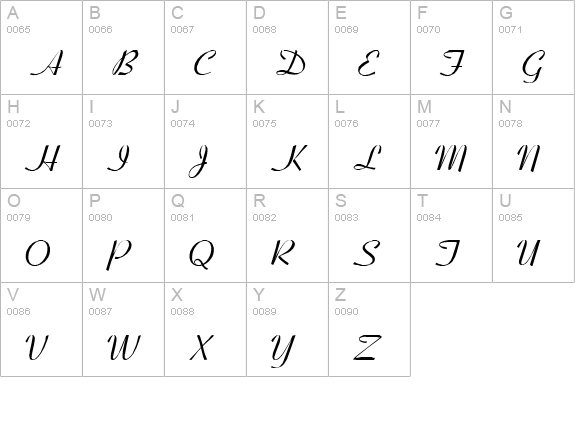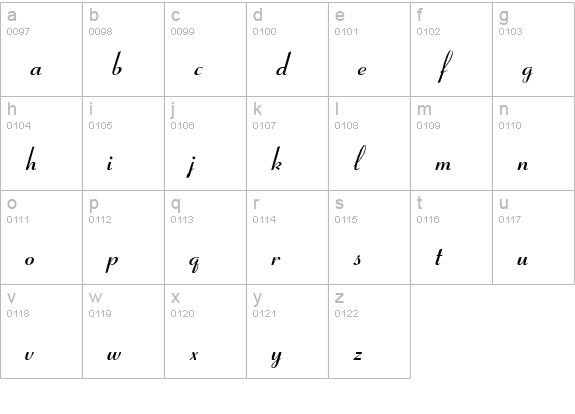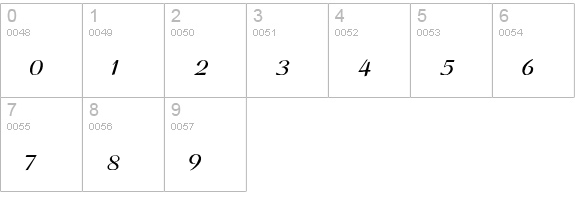
Coronet Script SSi Italic Font Details
Coronet Script SSi Italic is a distinctive, italic variant in the Coronet typeface family \xE2\x80\x94 well suited to design and typography projects.
Coronet Script SSi Italic font exudes elegance and sophistication with its graceful, flowing strokes and delicate curves. Perfect for adding a touch of charm to invitations, greeting cards, and other design projects, this italic variant of the Coronet Script SSi font brings a sense of refinement and class to any text it adorns. The slanted letters give a sense of movement and dynamism, making this font ideal for conveying a sense of energy and style. Best of all, Coronet Script SSi Italic font is completely free to download at FontsMarket.com. Now you can easily access this beautiful typeface and enhance your designs with its timeless appeal. Whether you're working on a wedding invitation, a logo design, or any other creative project, Coronet Script SSi Italic font is sure to elevate your work and leave a lasting impression. Download it today and add a touch of sophistication to your designs!